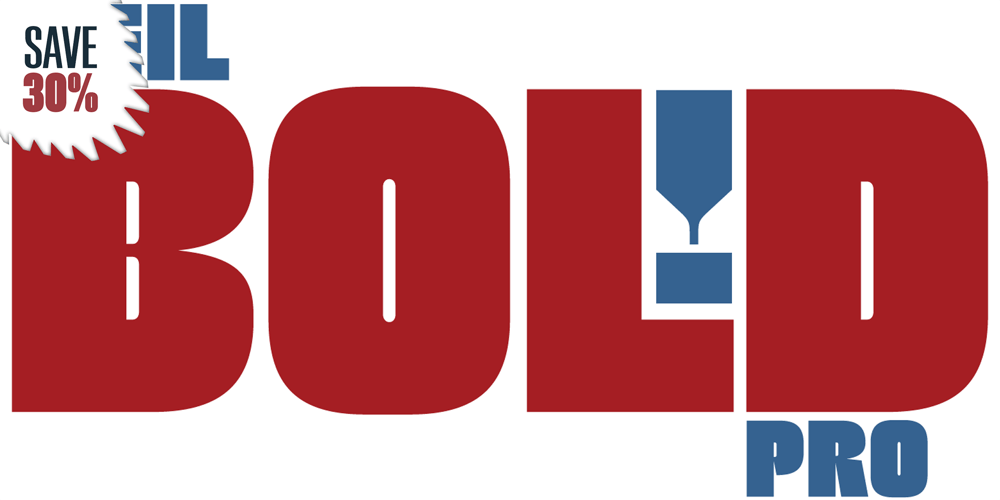
Neil Bold Font Family was designed by Patrick Griffin, Wayne J. Stettler and published by Canada Type. Neil Bold contains 4 styles and family package options. This is the one and only Neil Bold, designed by Wayne Stettler in 1966 and originally published as a Typositor typeface. An award-winner and instant celebrity upon its release, Neil Bold became synonymous with magnified modernism for a whole generation. It was a jazz record packaging favorite, especially at Blue Note records, and made regular appearances on science fiction book covers during the last stretch of the genre’s golden age. This digital version greatly expands on the film type one. New small caps and biform styles were added to the authentically revived main face (for a set of three fonts), and language support has been extended to include all Latin-based tongues. Neil Bold Pro, the OpenType version, comes in a single font that combines all three fonts into a single file, with programmed features for small caps, stylistic alternates (for biform shapes), a few extra alternates, class-based kerning, and additional language support for Cyrillic and Greek scripts.